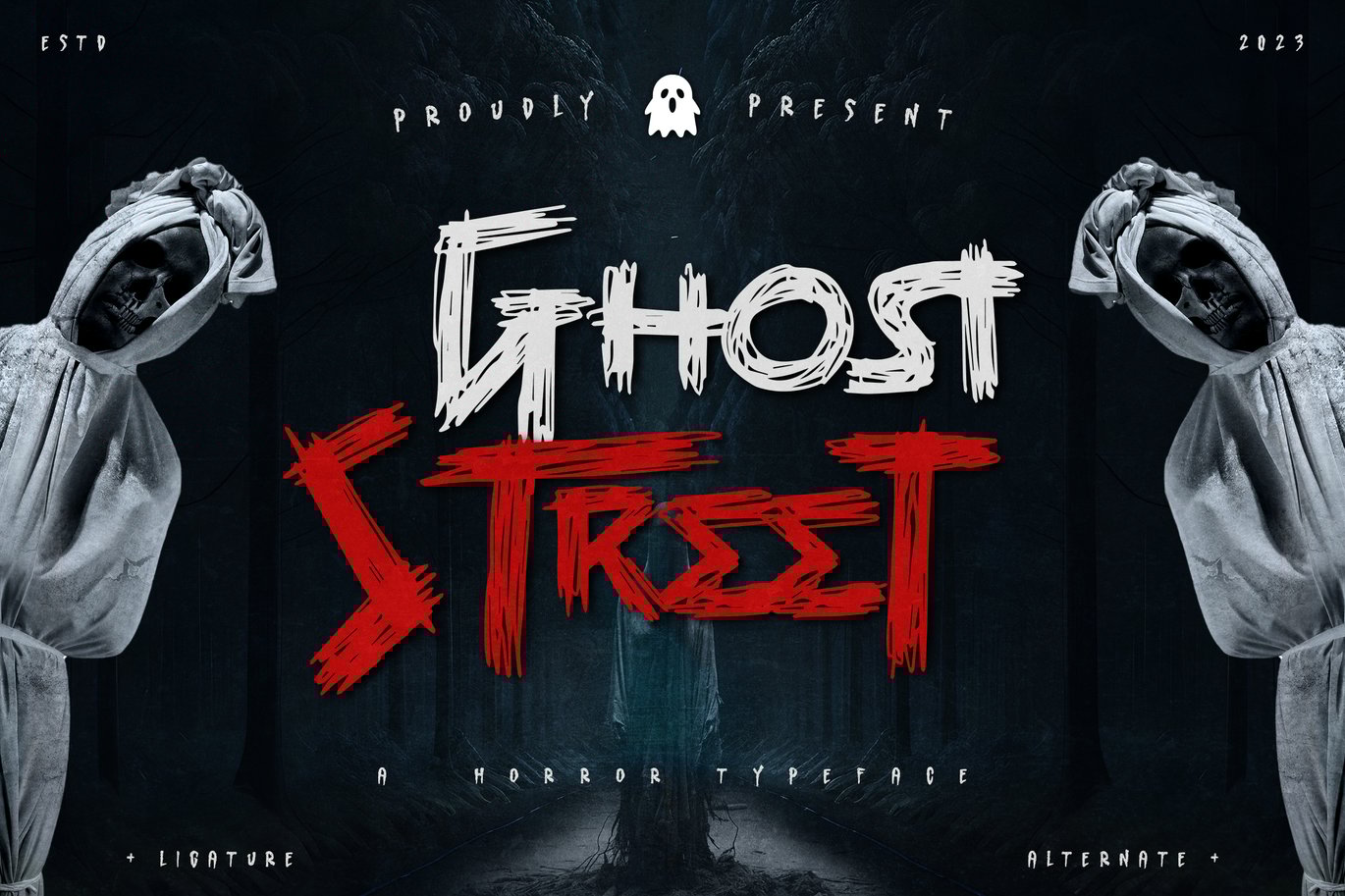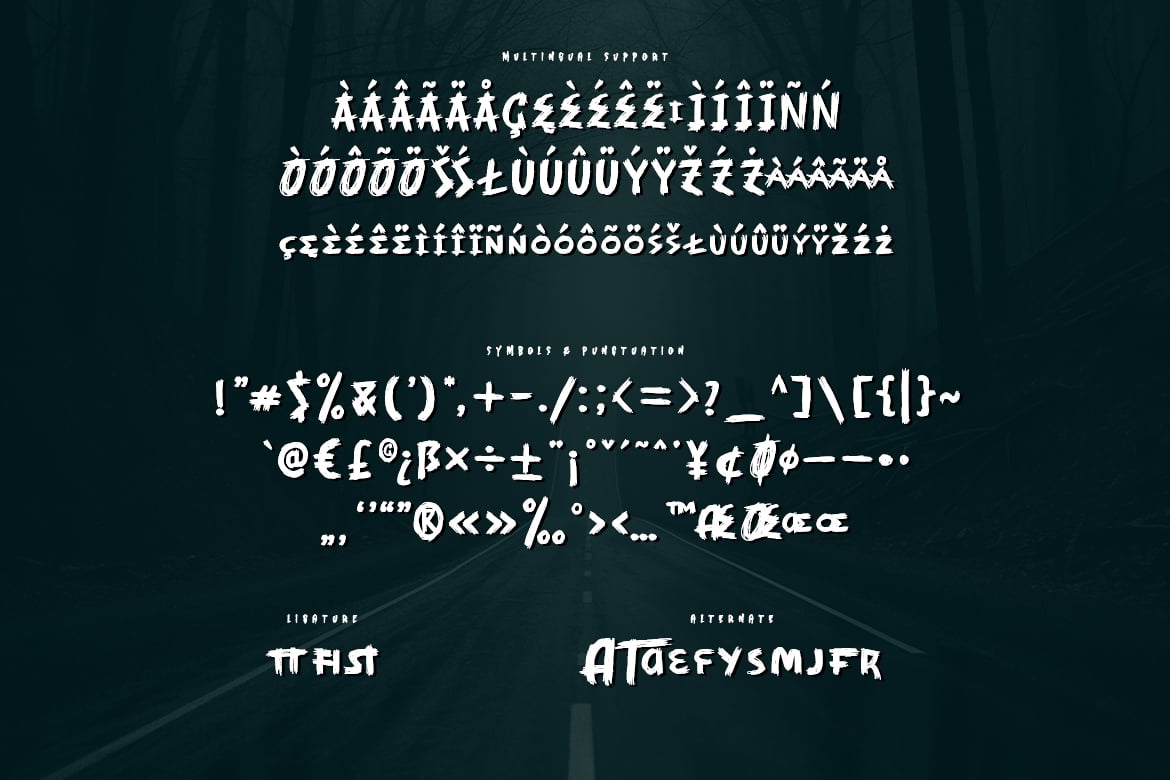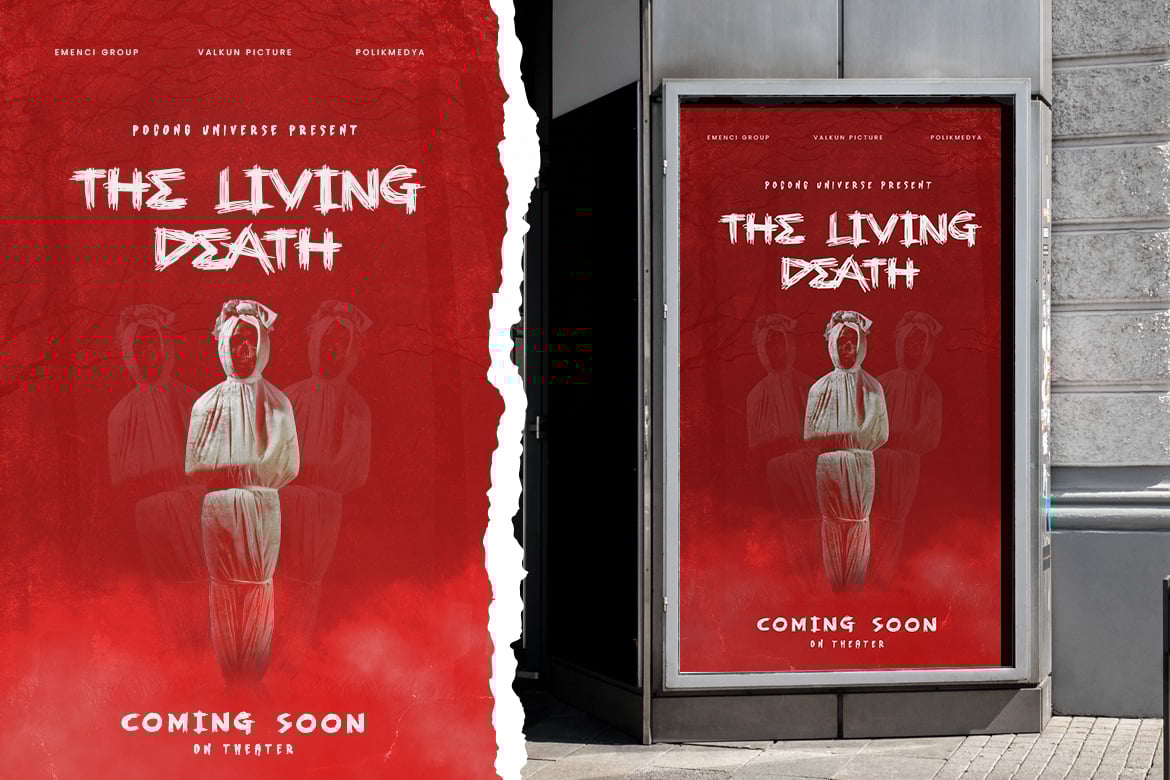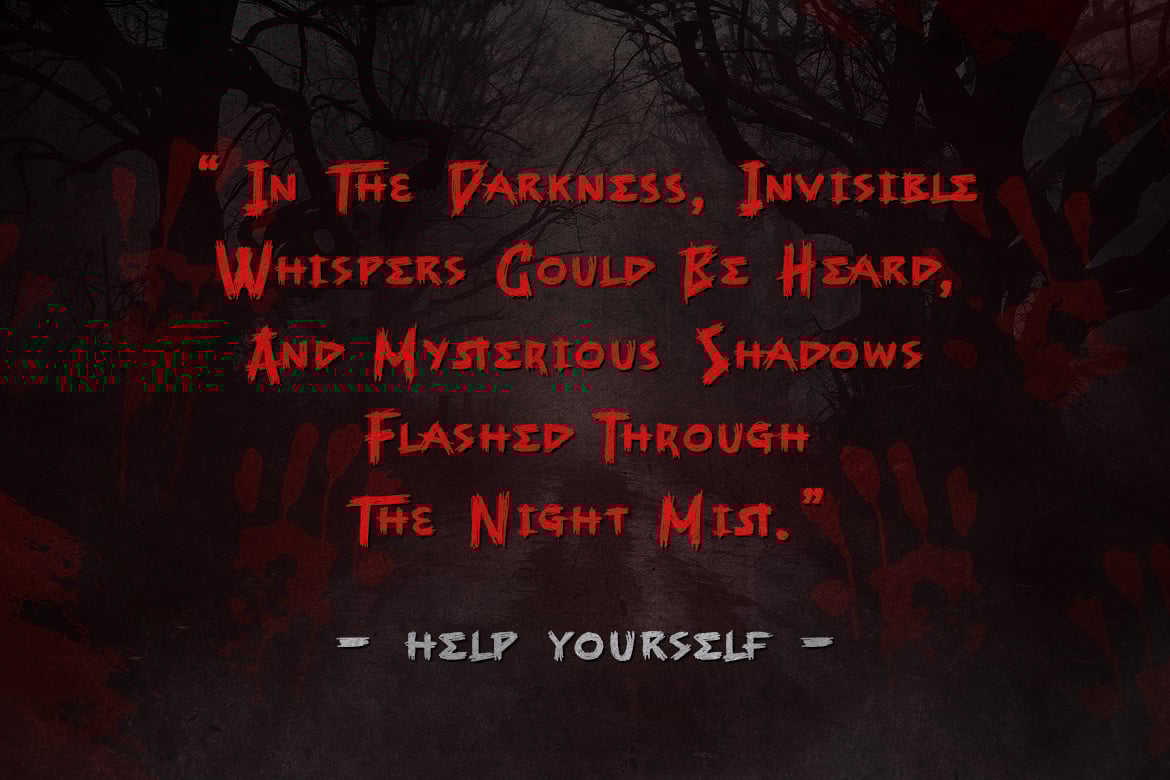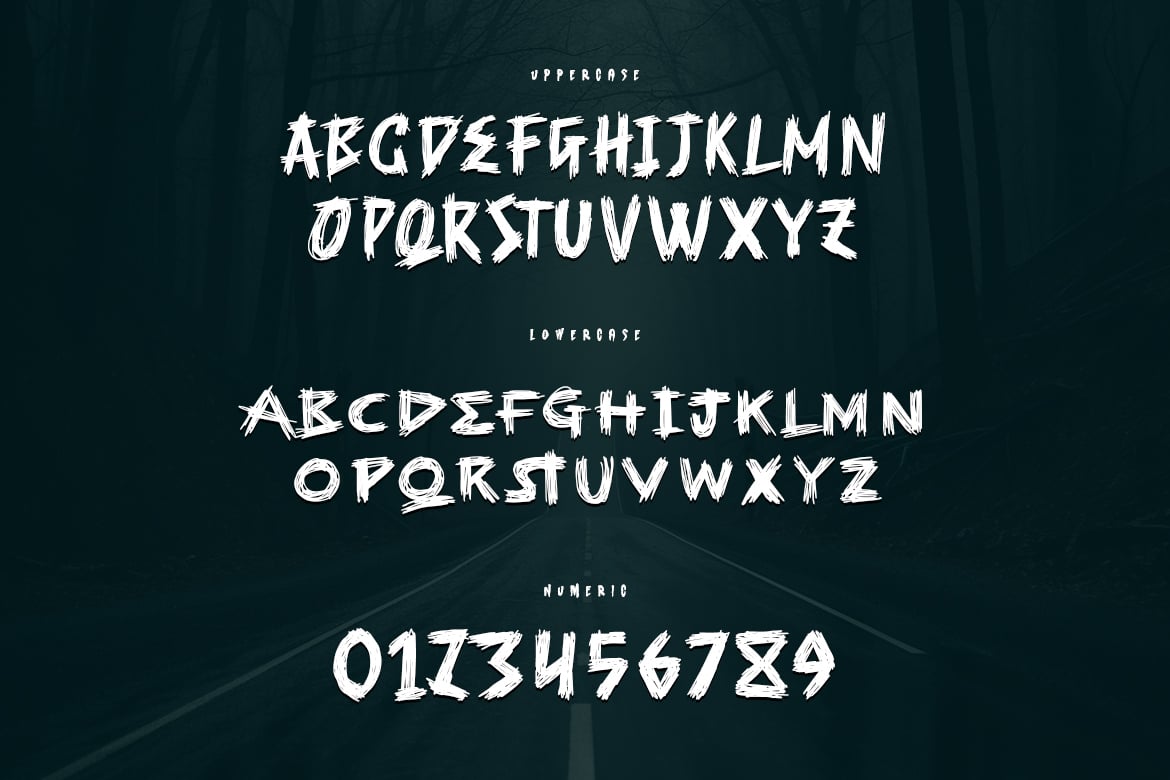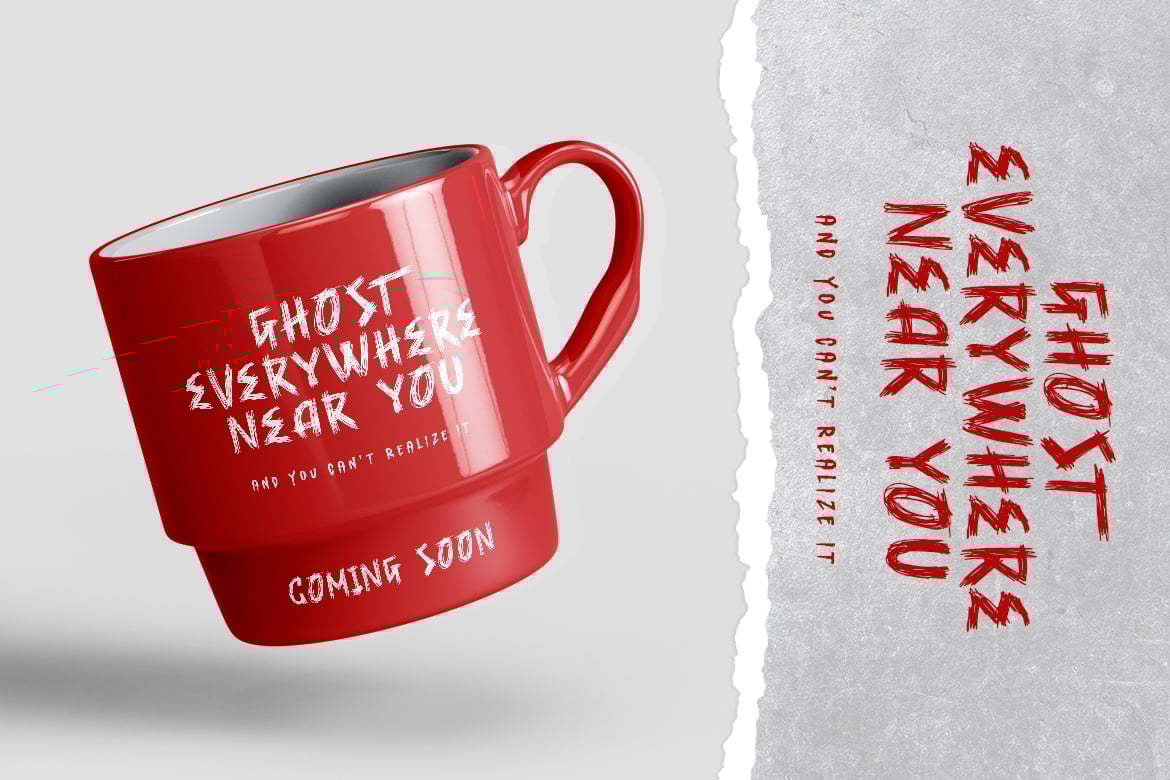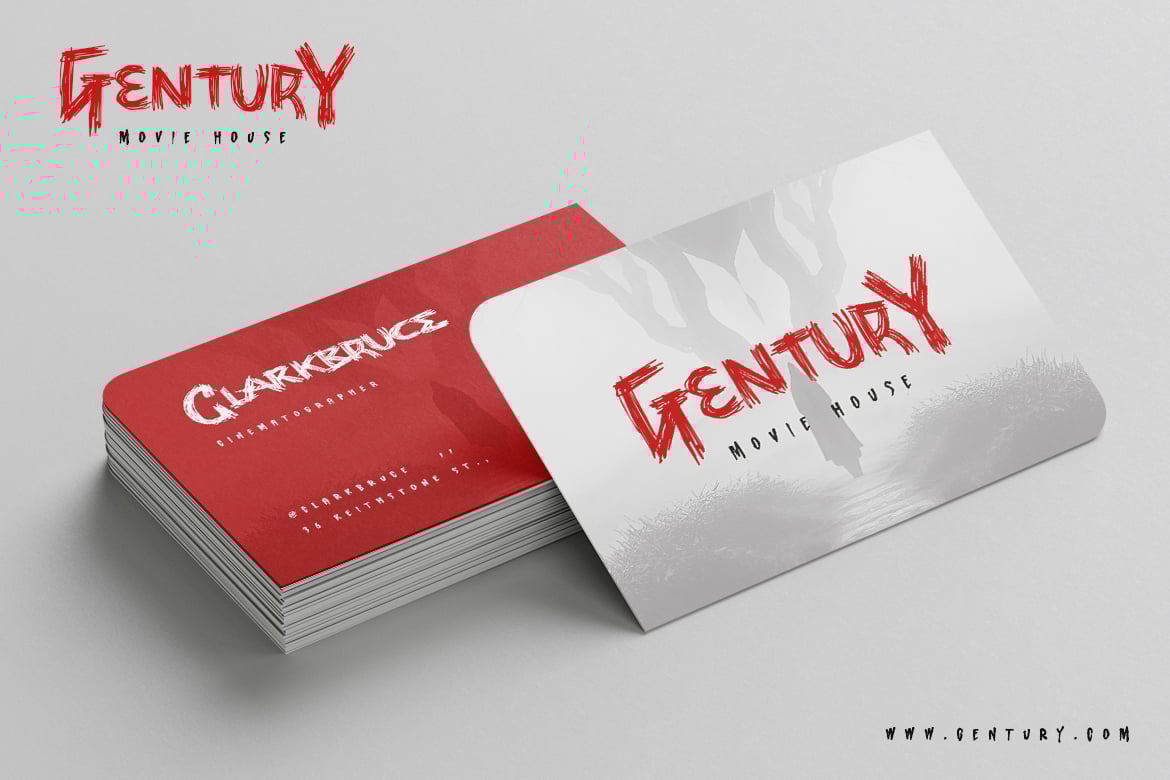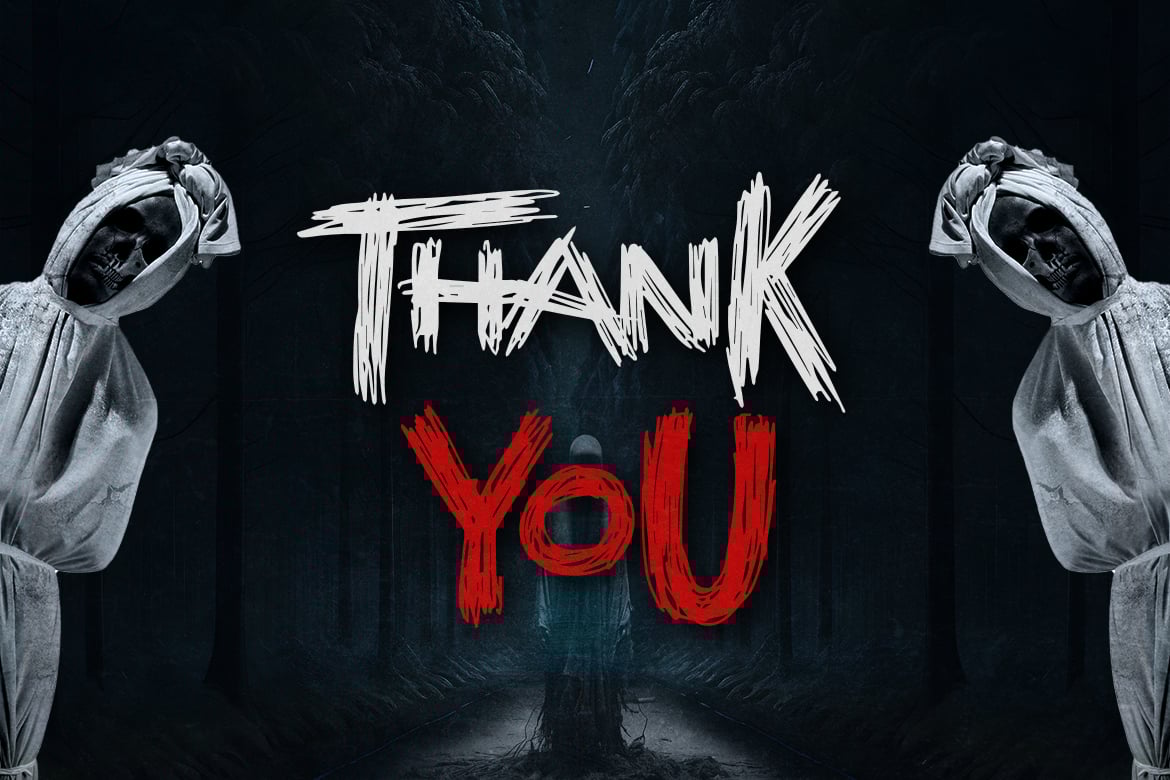
Ghost Street – A Horror Typeface
Ghost Street is a spine-tingling horror typeface designed to evoke fear and suspense. With its jagged edges, eerie letterforms, and unsettling details, Ghost Street captures the essence of the supernatural and the unknown. Perfect for horror movie posters, haunted house flyers, Halloween invitations, and eerie book covers, this typeface creates a chilling atmosphere that leaves a lasting impression. Ghost Street is the ideal choice for designs that need a dark, haunting, and unforgettable visual impact.